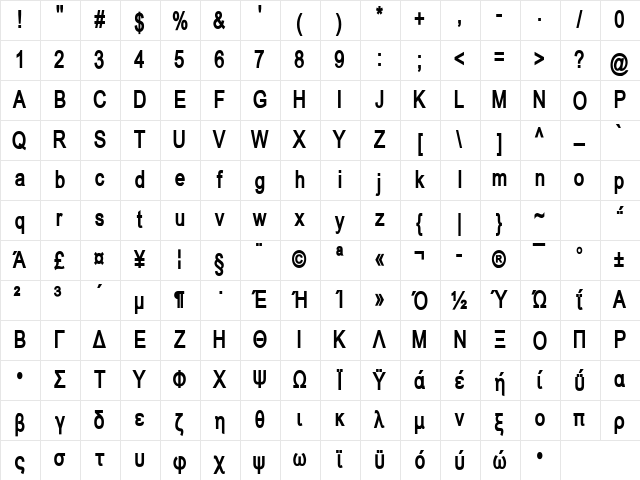
HellasArial Condensed Bold Free Font
HellasArial Condensed Bold
Complete HellasArial Condensed Bold glyph index. Displaying only characters natively supported by HellasArial Condensed Bold font.
Design Context for HellasArial Condensed
HellasArial Condensed is a composed and adaptable typeface that performs quietly and consistently across a wide range of design contexts. Its bold stroke weight gives it real presence on the page. Its narrow stance lets it pack a punch even in space-constrained designs.